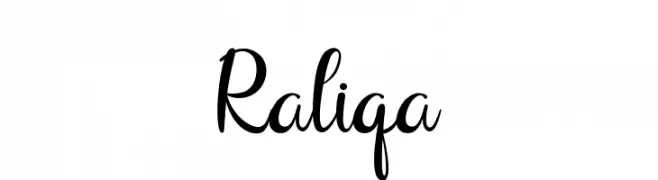
A bold, dynamic script font with fluid, energetic strokes.
A playful, handwritten font with fluid, connected strokes and a casual vibe.
A playful, handwritten font with smooth, flowing lines and rounded edges.
A lively and dynamic script font with elegant, flowing characters.
A graceful script font with flowing, cursive strokes and elegant design.
A bold, flowing script font with a handwritten appearance.
A bold, hand-drawn font with a vintage, organic feel.